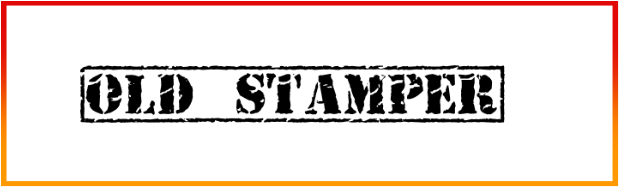
Old Stamper
Old Stamper is a fancy font (2009). It's a decorative display font with plenty of personality, made to grab attention. It's a free download, and you can try it with your own text in the preview above first.
You get every letter from A to Z in both cases and all the numbers from 0 to 9, which means Old Stamper can handle full sentences, dates and prices. Common punctuation such as &, !, ? and @ is included as well. It doesn't include accented letters such as é or ñ, which makes it an English-only font.
Old Stamper is a natural fit for posters, logos and eye-catching headlines. The file has no kerning data, so in logos and big titles check pairs like AV, To and Wa and tighten the spacing by hand. Use it for one standout word or headline and let simpler fonts handle the rest.